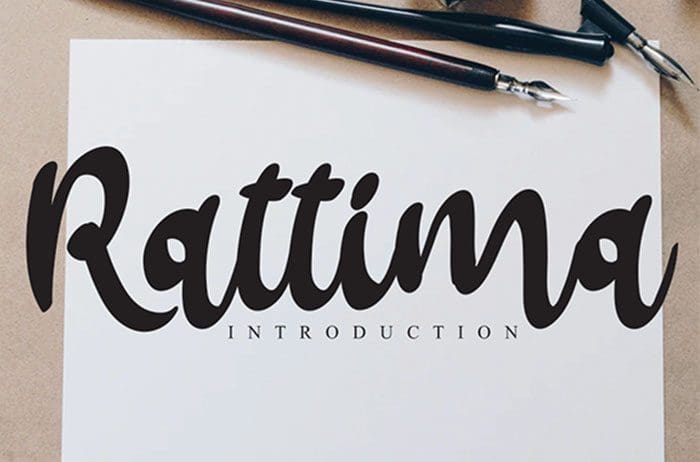
Rattima Calligraphy Font
Rattima calligraphy font, created by using a brush pen. Clean and a little bit quirky, this font is the perfect fit for all of your logos, branding, social media, and crafty DIY projects. Designed this font by Andika Studio. You can also search more freeĀ Calligraphy Fonts.